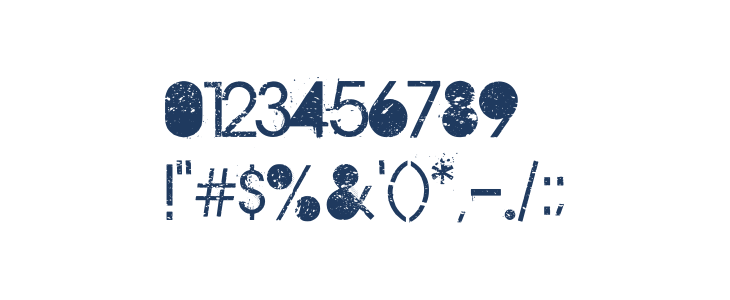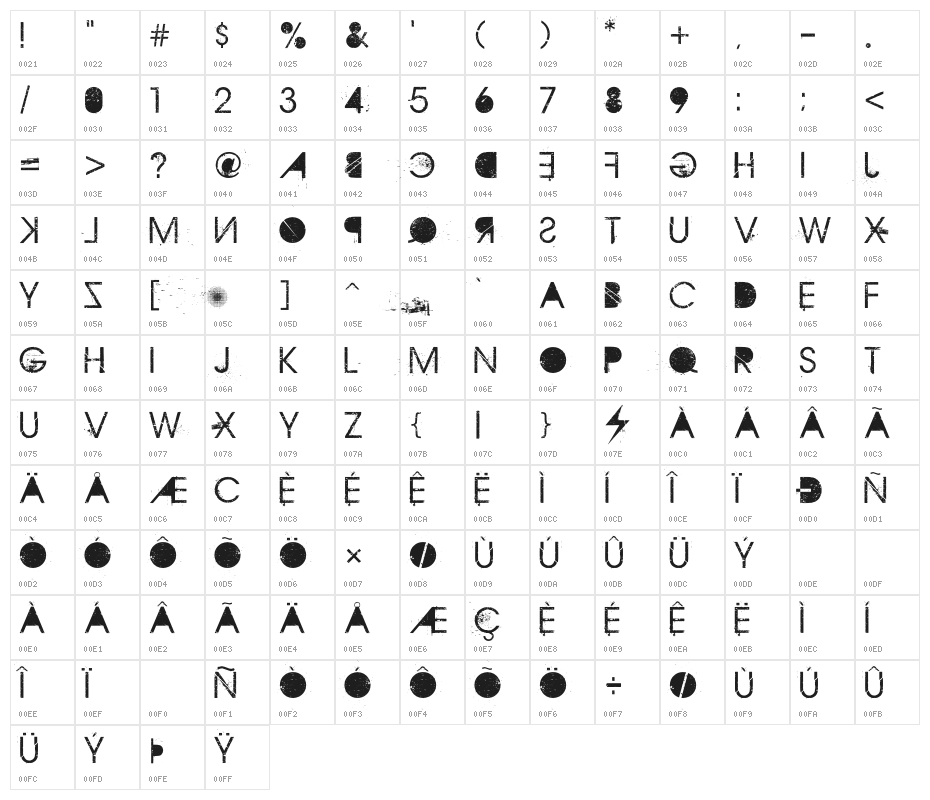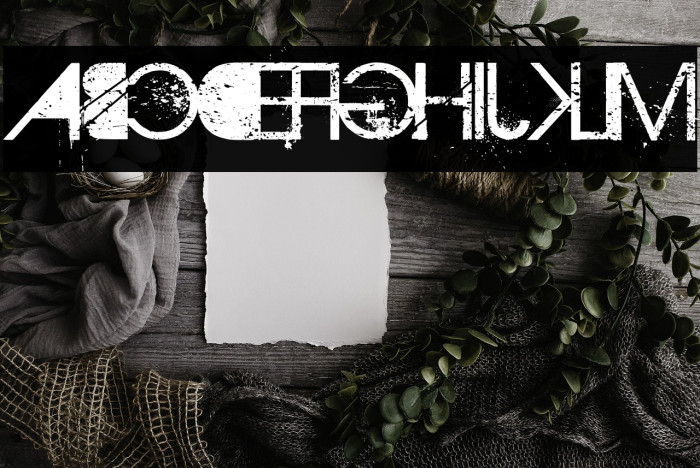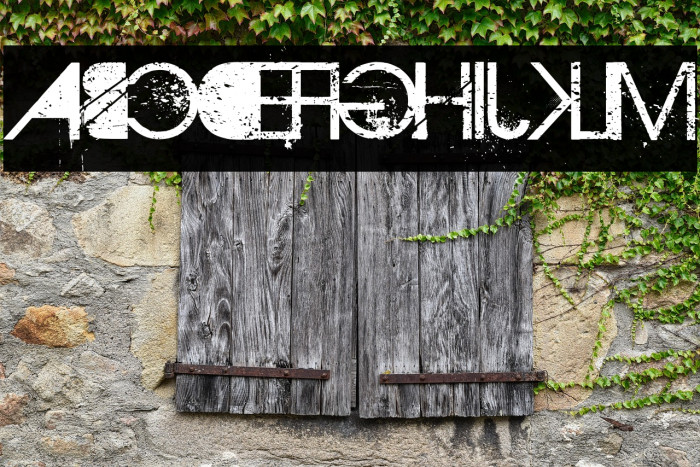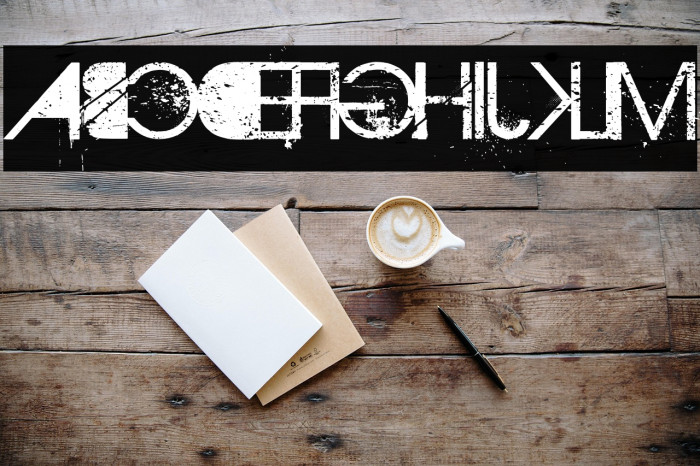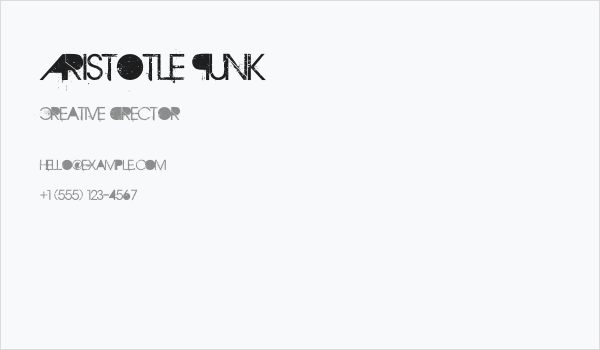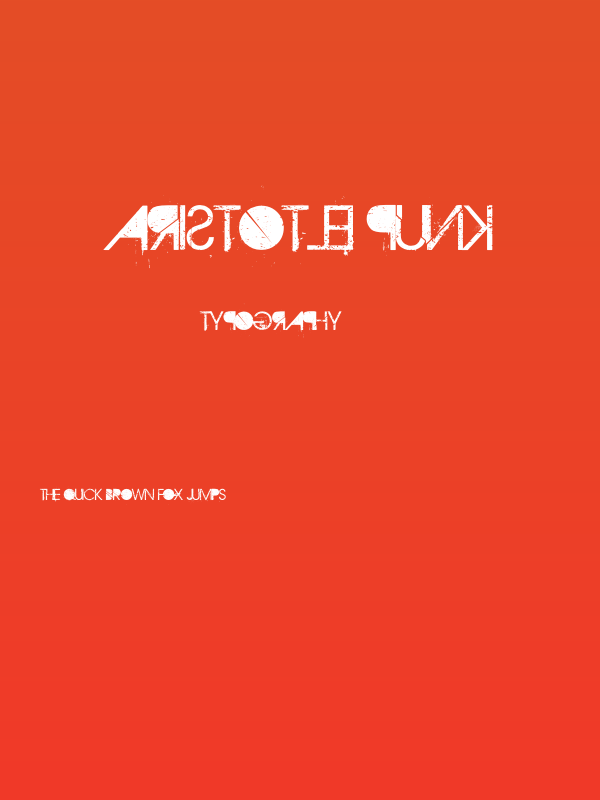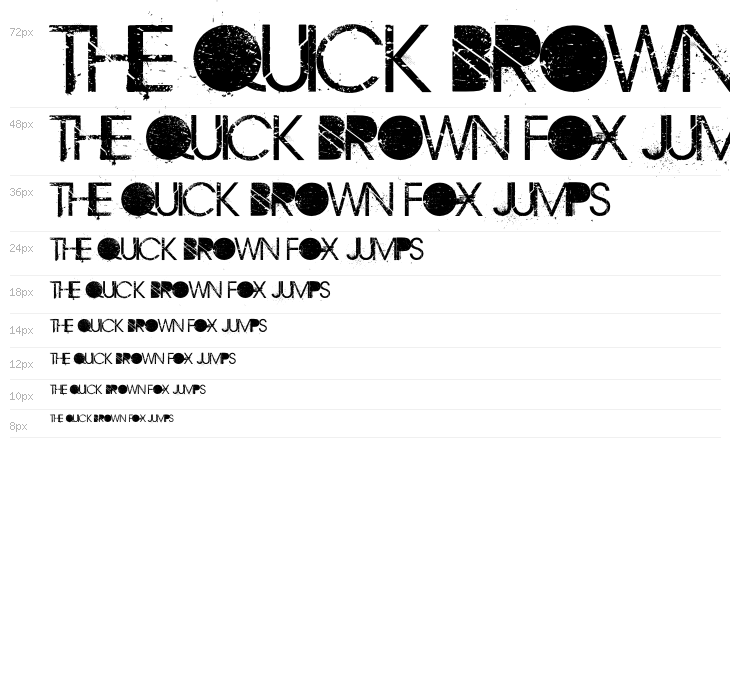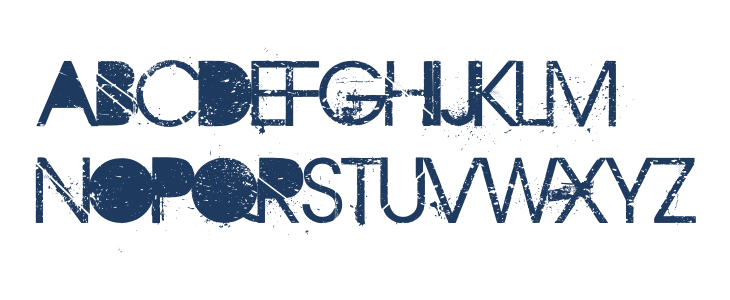
Aristotle Punk Font
Aristotle Punk Description
This font features a bold, distressed style with a grunge aesthetic. The uppercase letters are characterized by sharp angles and geometric shapes, while the lowercase letters maintain a consistent alignment with a slightly rough texture. Numbers and special characters follow the same distressed pattern, adding to the overall edgy appearance. The font's unique design makes it stand out, with a worn, vintage look that suggests a sense of rebellion and individuality. The characters are evenly spaced, ensuring readability despite the heavy texture. This font is ideal for projects that require a bold statement or a punk-inspired theme.
| Overall Style | Grunge, Vintage, Edgy |
| Proposed Projects | Album covers, posters, streetwear branding, event flyers, and rebellious-themed designs. |